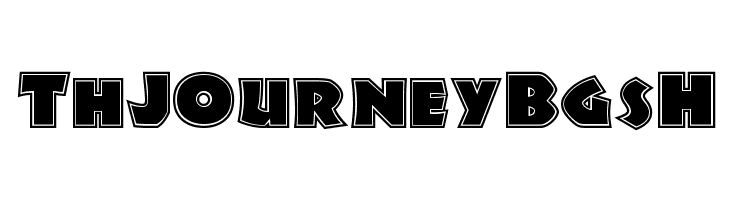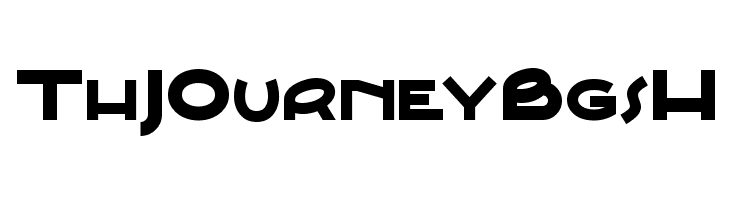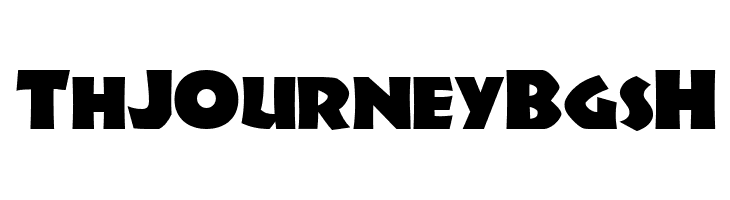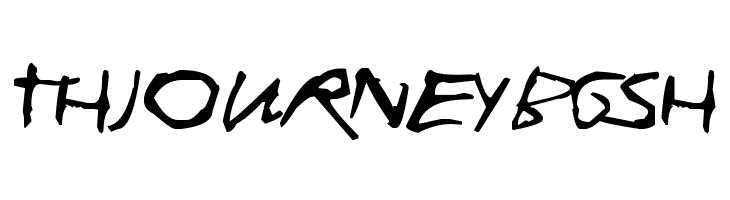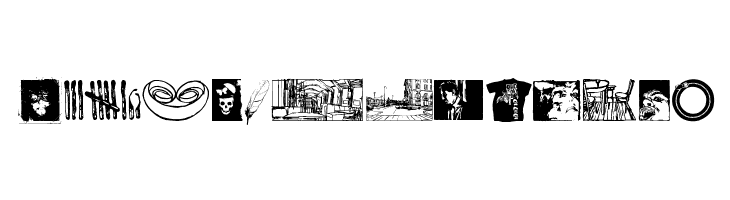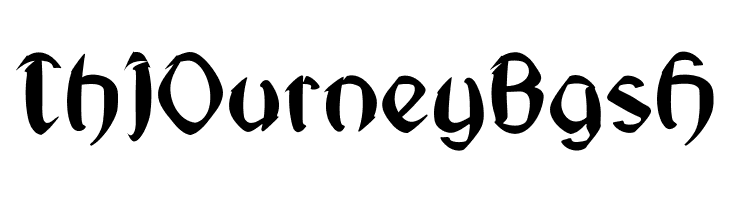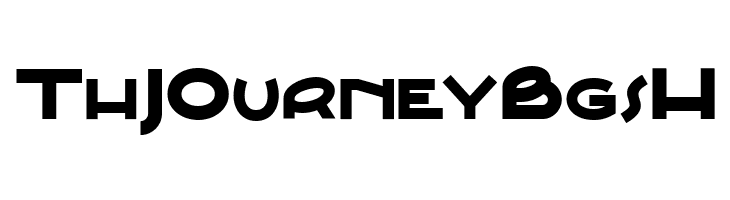
• Josefreduced-Ultra
( ingoFonts - Ingo Zimmermann - www.ingofonts.com )
A bold, heavy font with wide character spacing and a modern aesthetic.
• Joskus Ei
( Fonts by www.junkohanhero.com )
A bold, expressive brush script font with dynamic, hand-drawn strokes.
• Jugendstil-Medium
A bold, artistic font with flowing, organic forms inspired by Art Nouveau.
• Junebug Stomp NF
A bold, geometric font with sharp angles and a dynamic style.
• JunebugStompNF
A bold, geometric font with sharp angles and a modern edge.
• Jungle Fever Inline NF
A bold, decorative font with a unique inline design, perfect for impactful headlines.
• Jungle Fever NF
A bold, dynamic font with angular cuts and a playful, adventurous style.
• JungleFeverInlineNF
A bold, decorative font with an inline design for added depth.
• JungleFeverNF
A bold, dynamic font with angular strokes and playful shapes, perfect for adventurous themes.
• jungodingbats